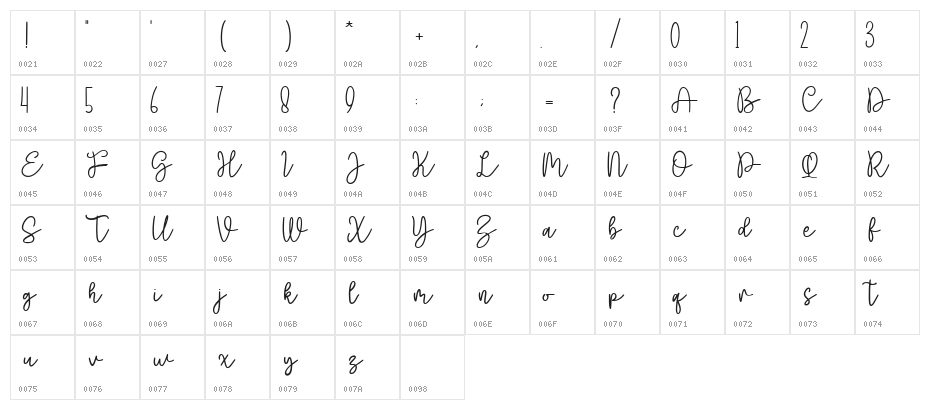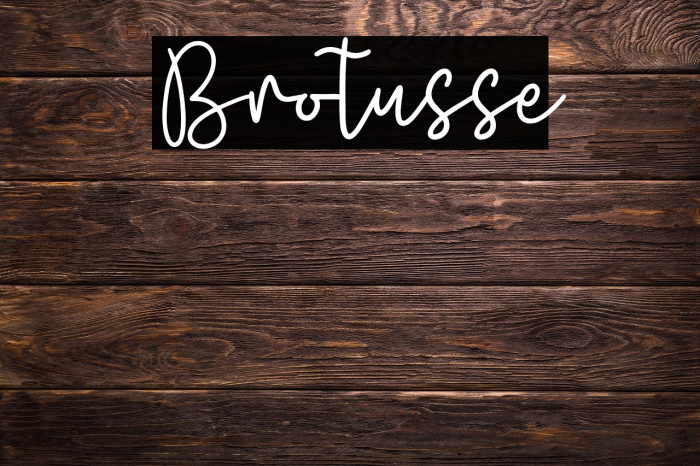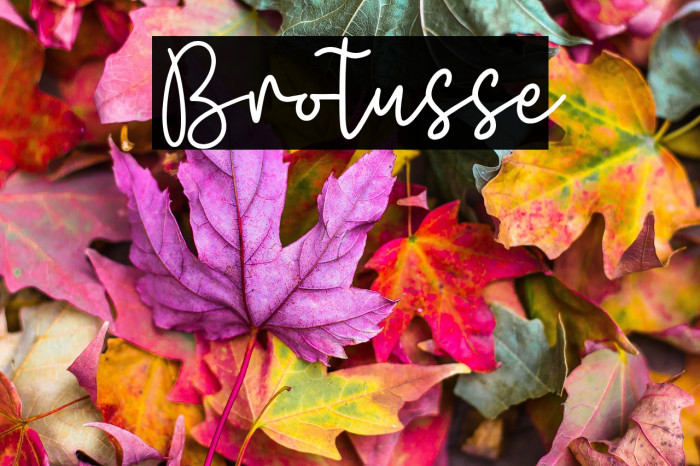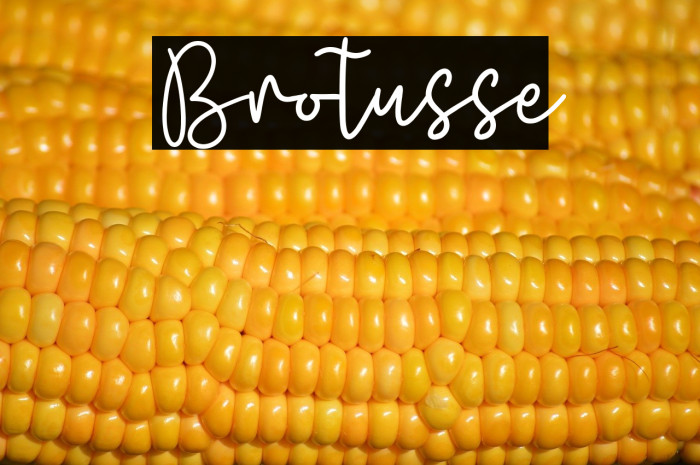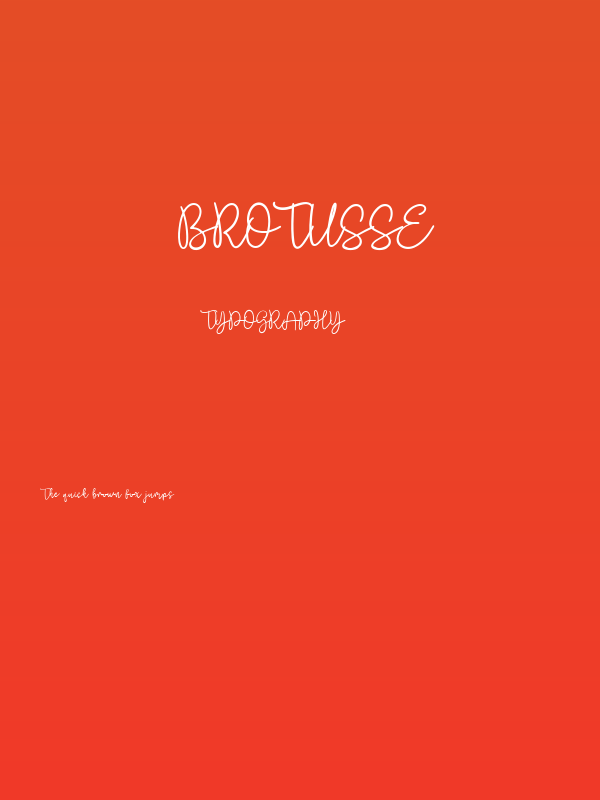
Brotusse Font
Brotusse Description
This font features a playful and flowing script style, characterized by its smooth, connected letters that mimic natural handwriting. The uppercase letters are elegantly looped, while the lowercase letters maintain a consistent rhythm and flow. The numerals and special characters are crafted with the same fluidity, ensuring a cohesive look across all text. The overall appearance is casual yet refined, making it suitable for a variety of creative applications.
| Proposed Projects | Ideal for wedding invitations, greeting cards, branding, and social media graphics. |